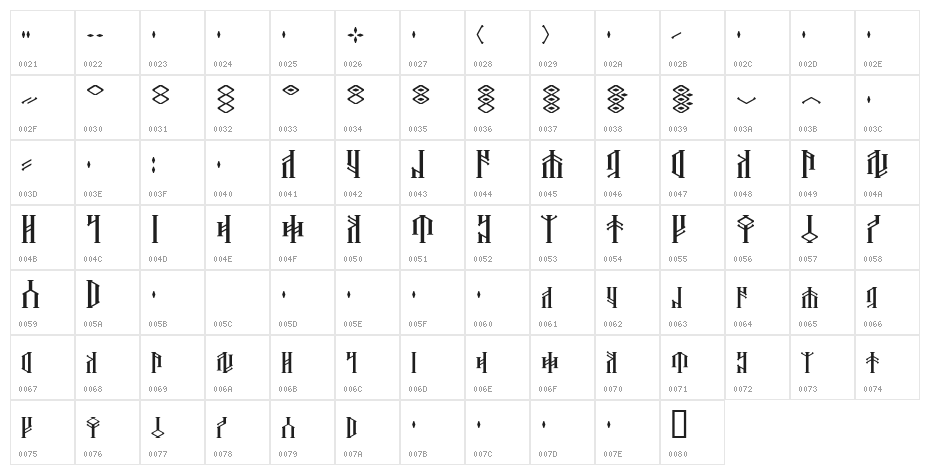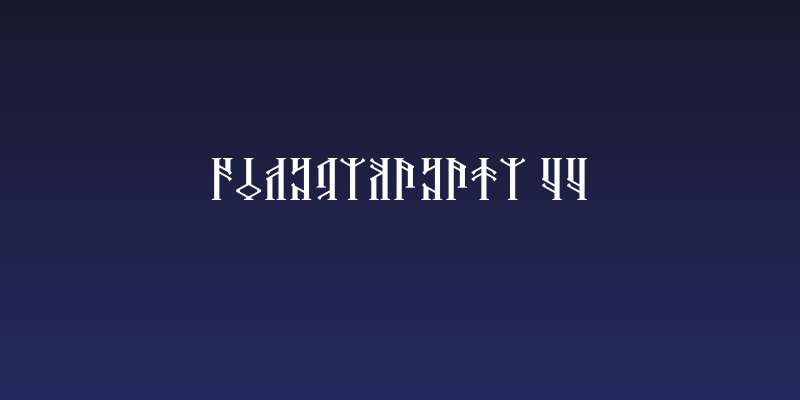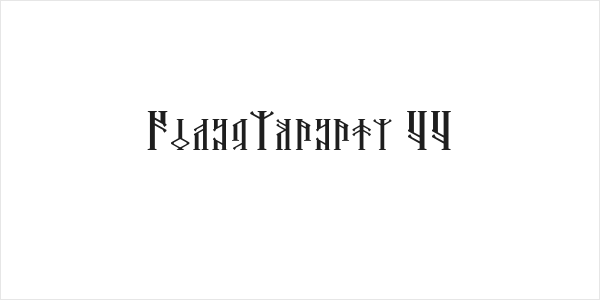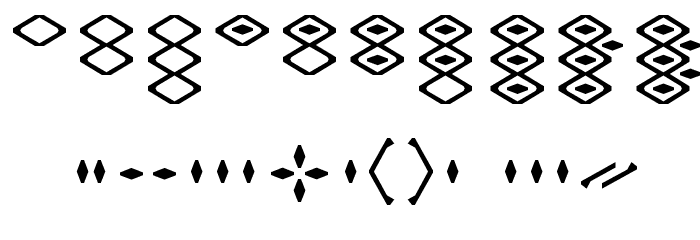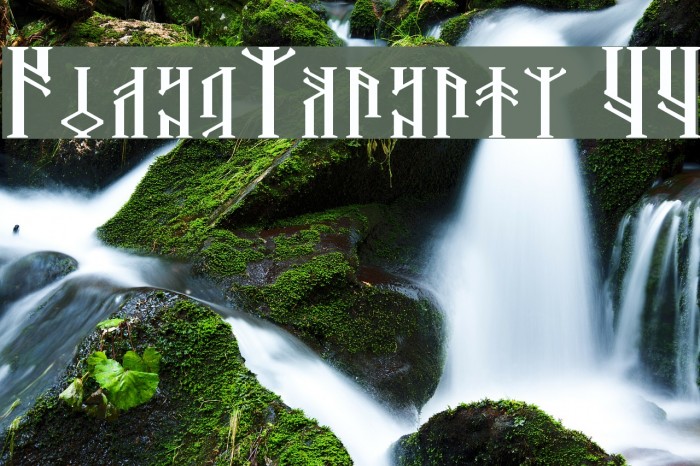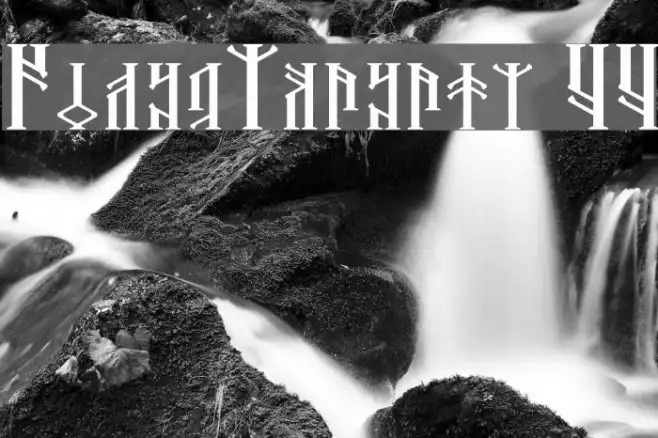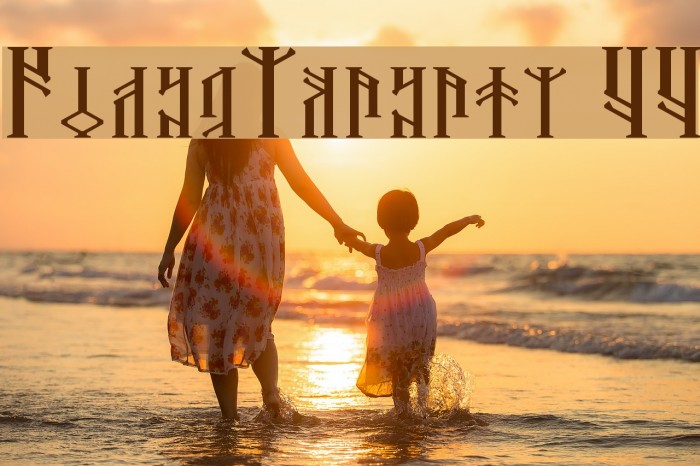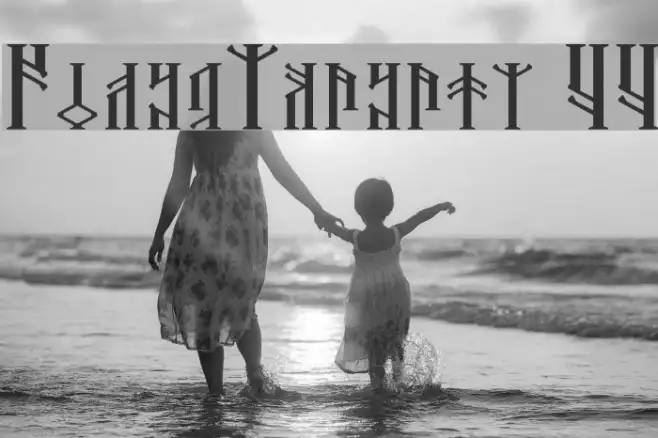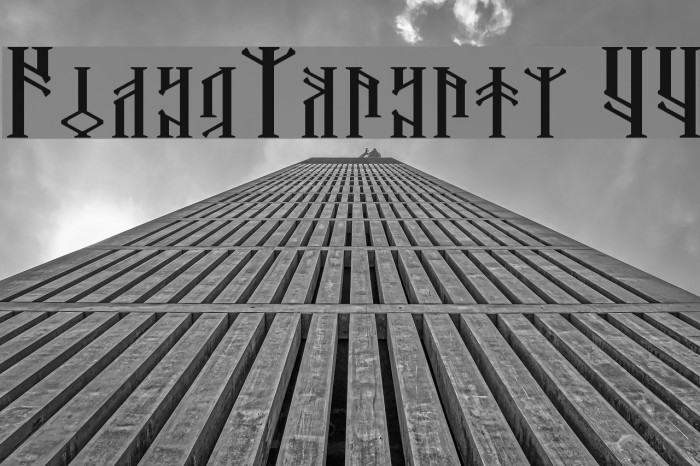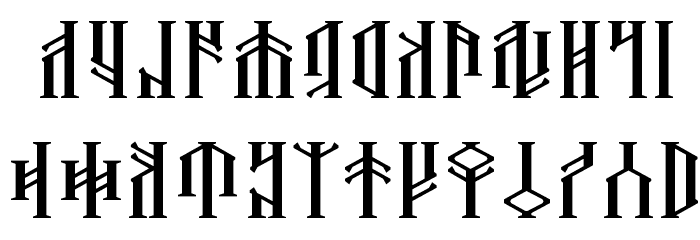
DwarfSpirits BB Font
| Progetti proposti | Ideal for fantasy-themed projects, game design, book covers, or any creative work requiring a mystical or historical touch. |